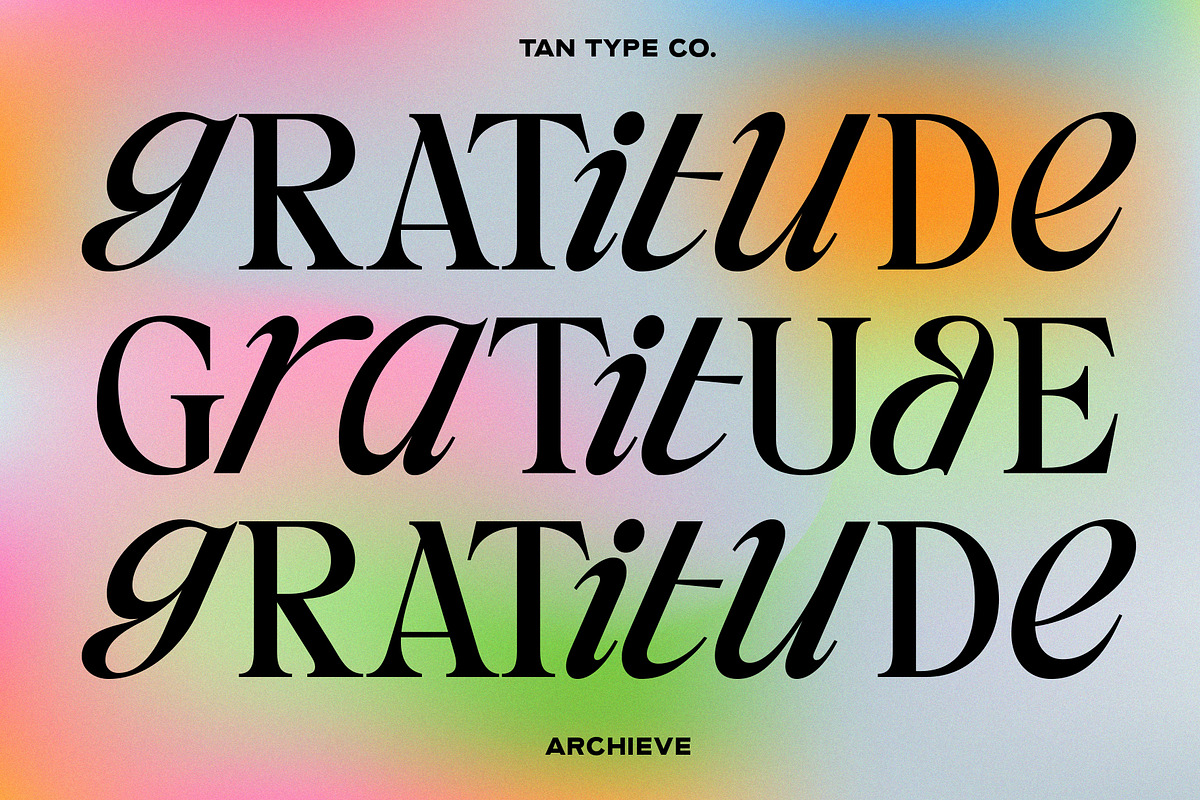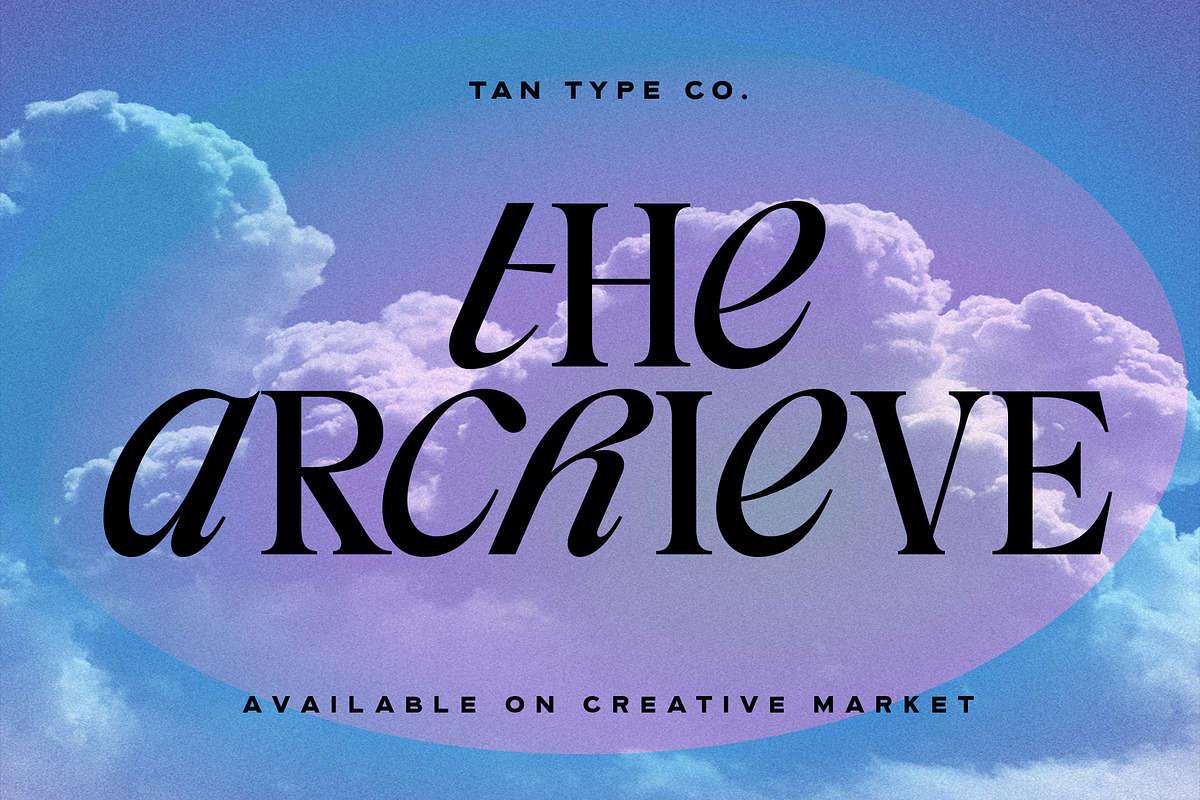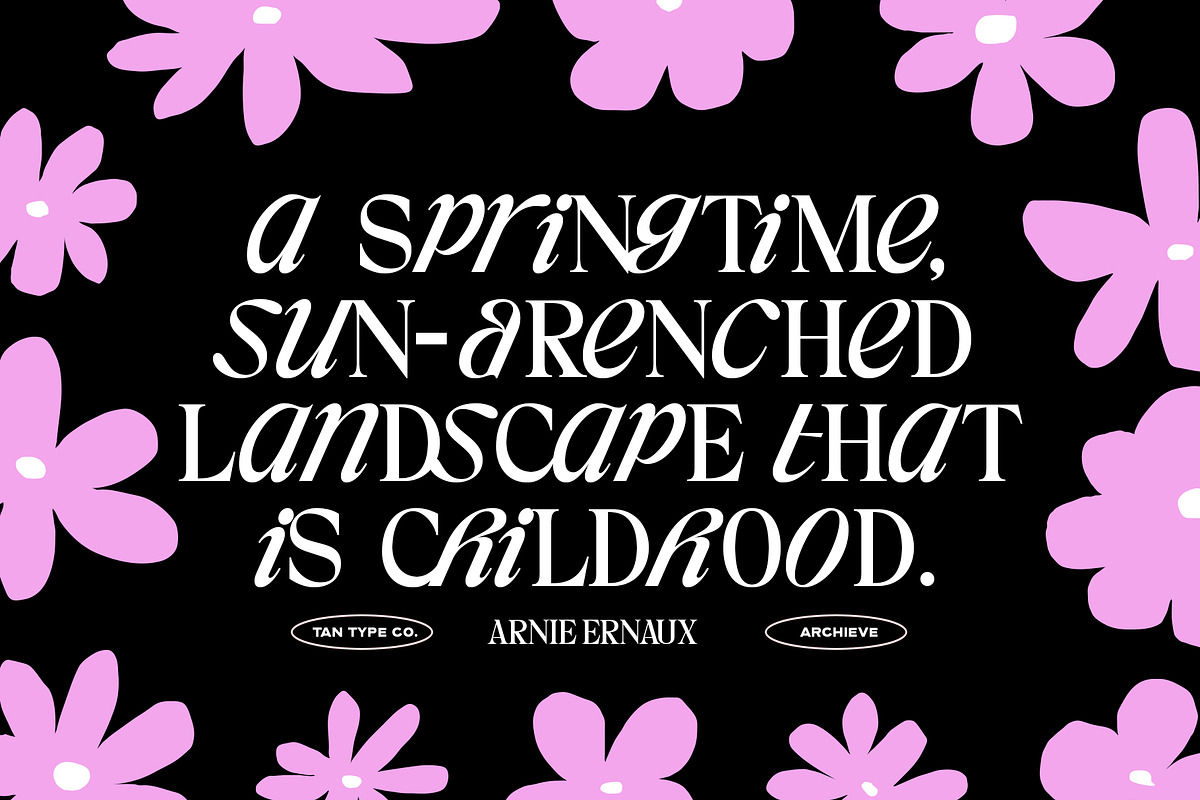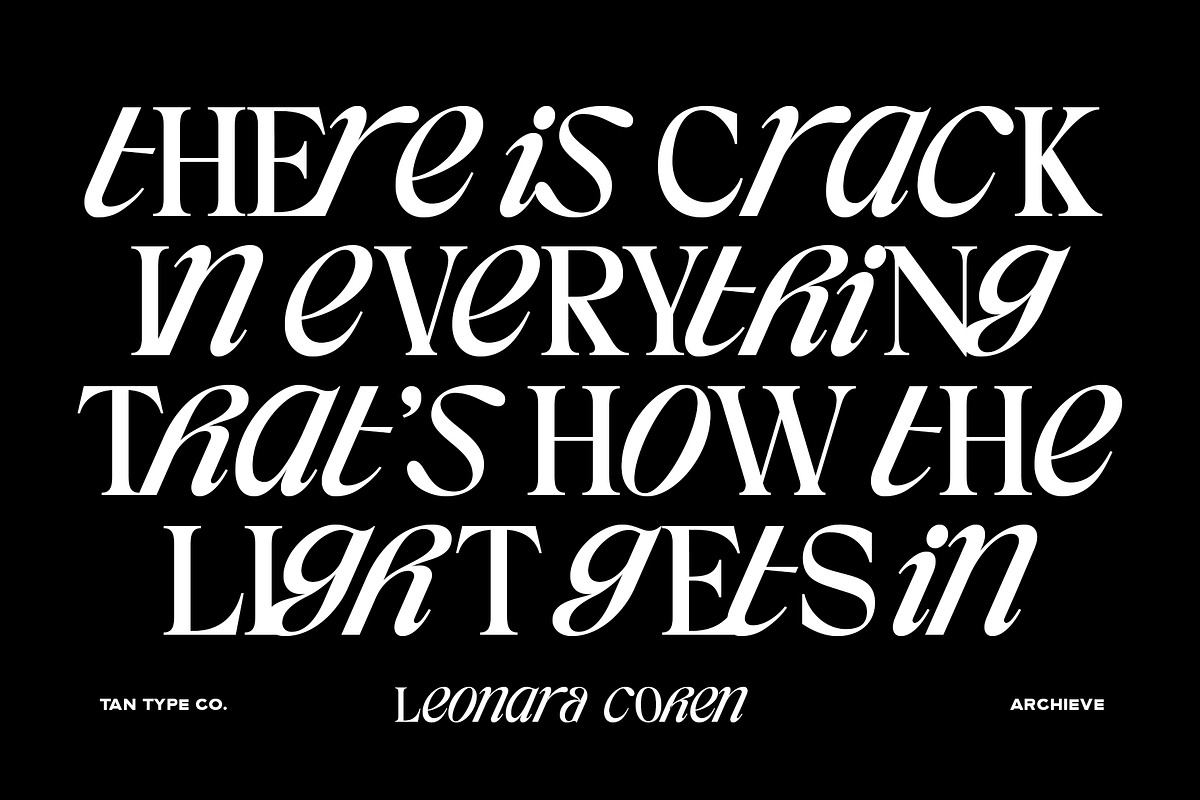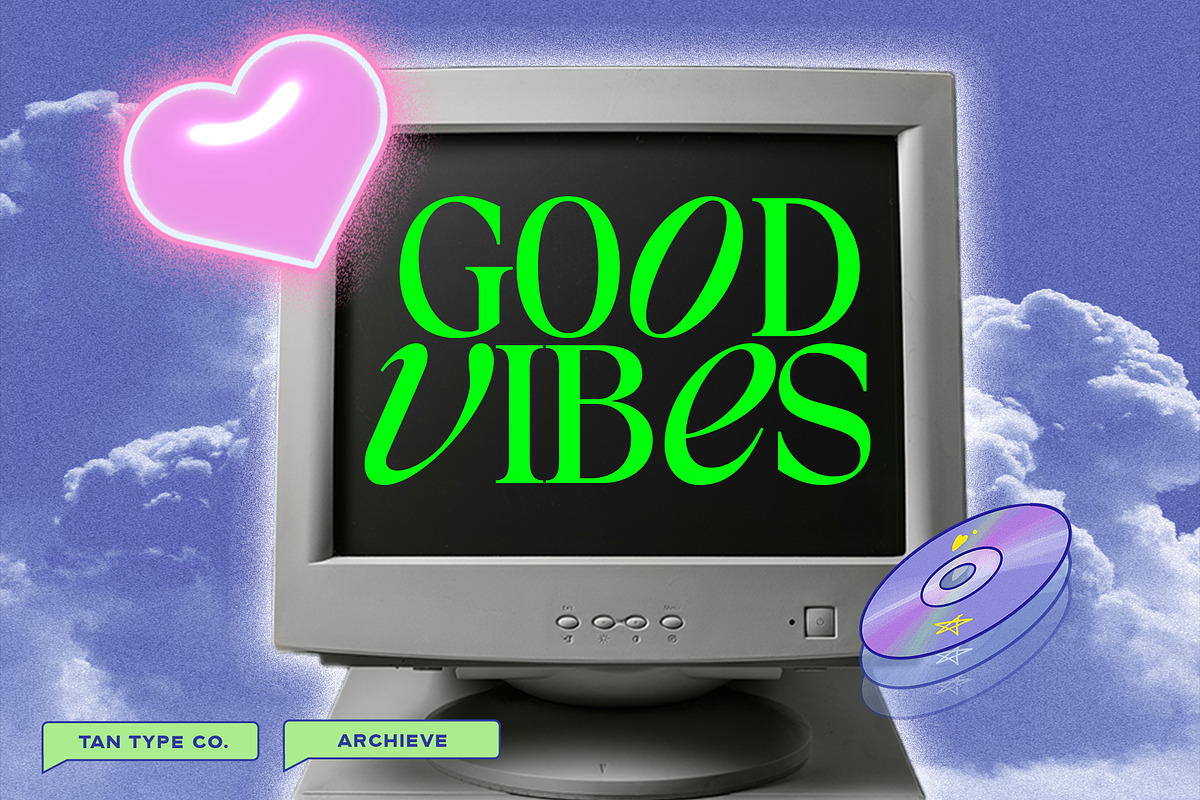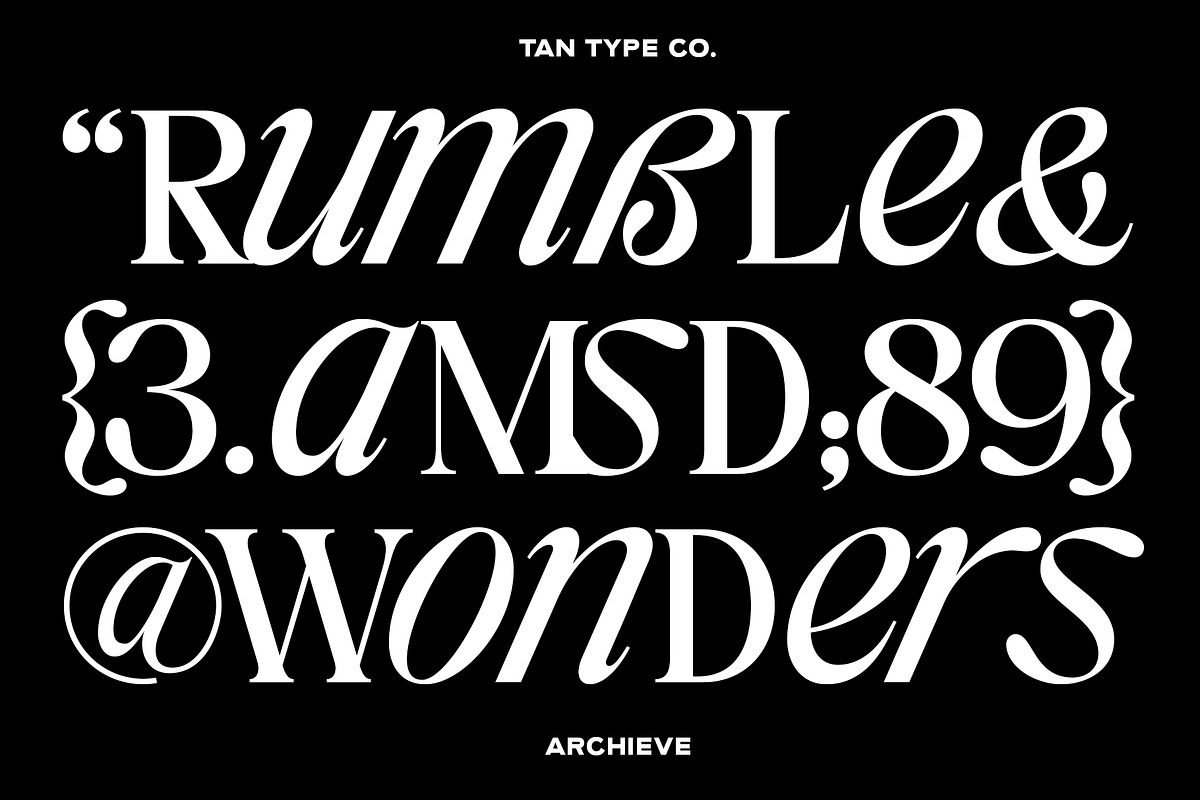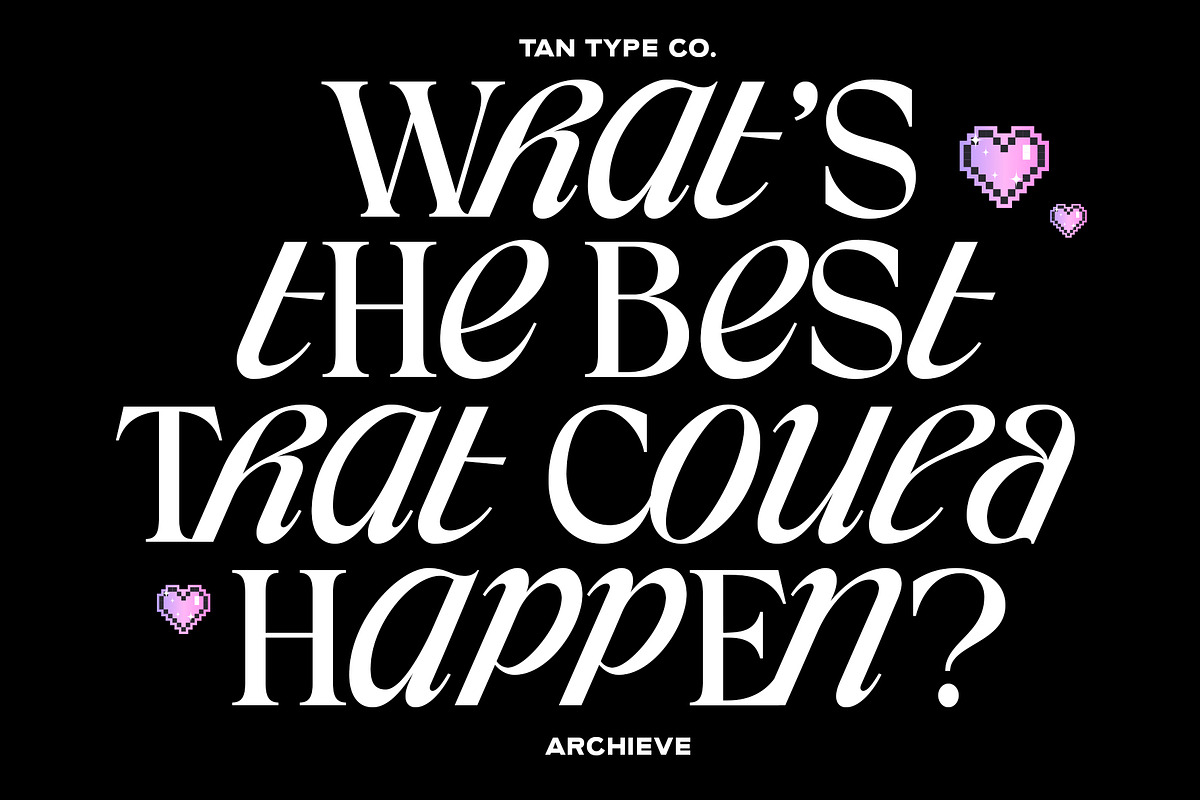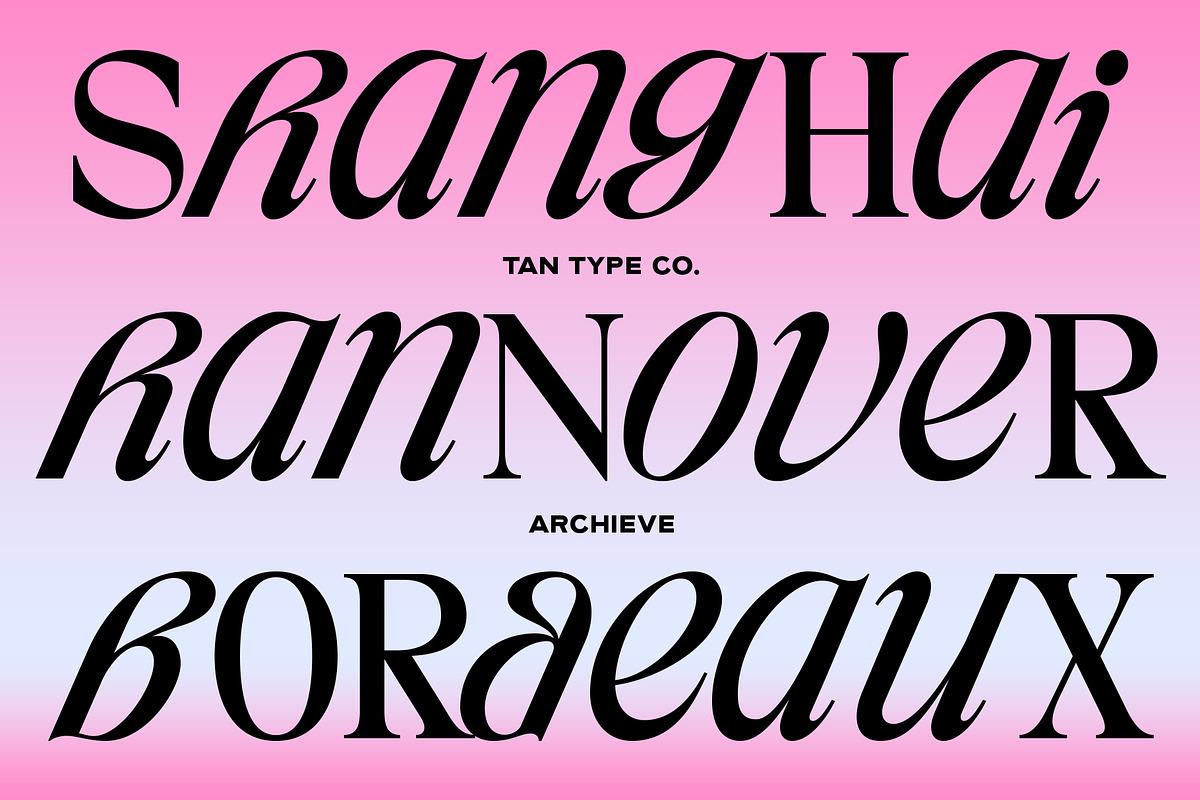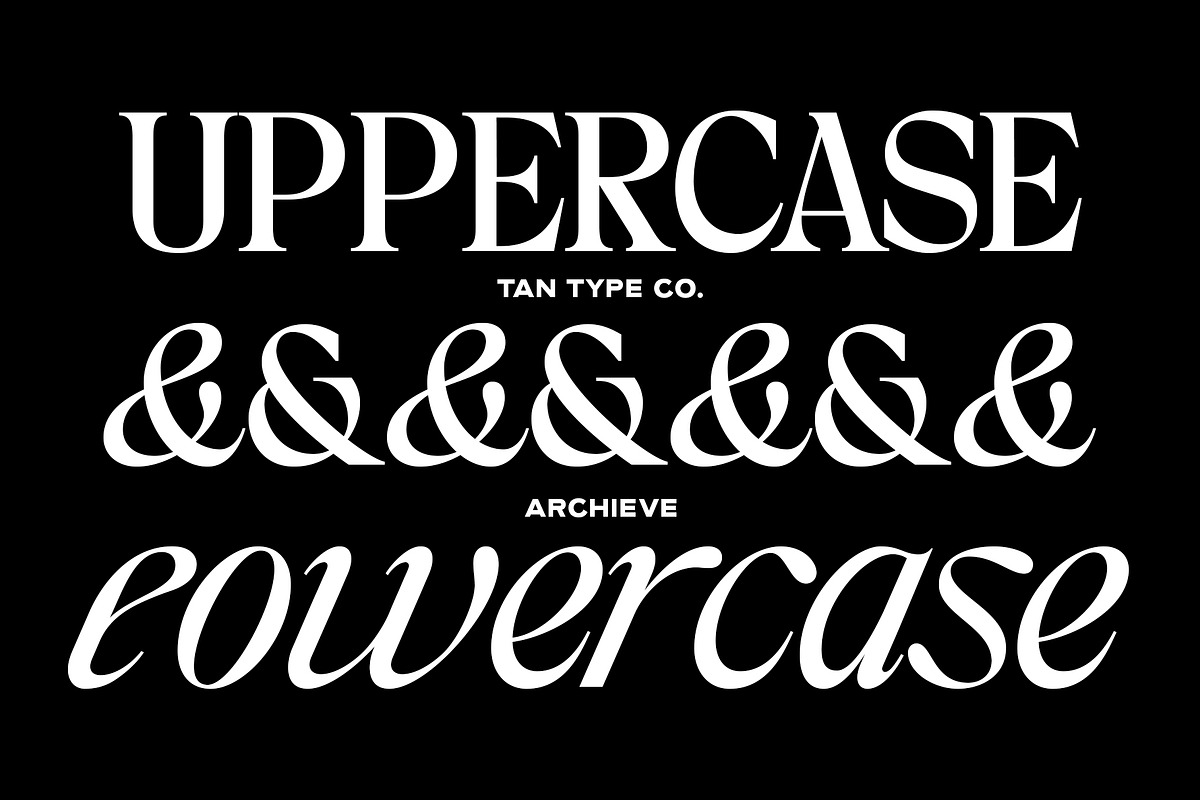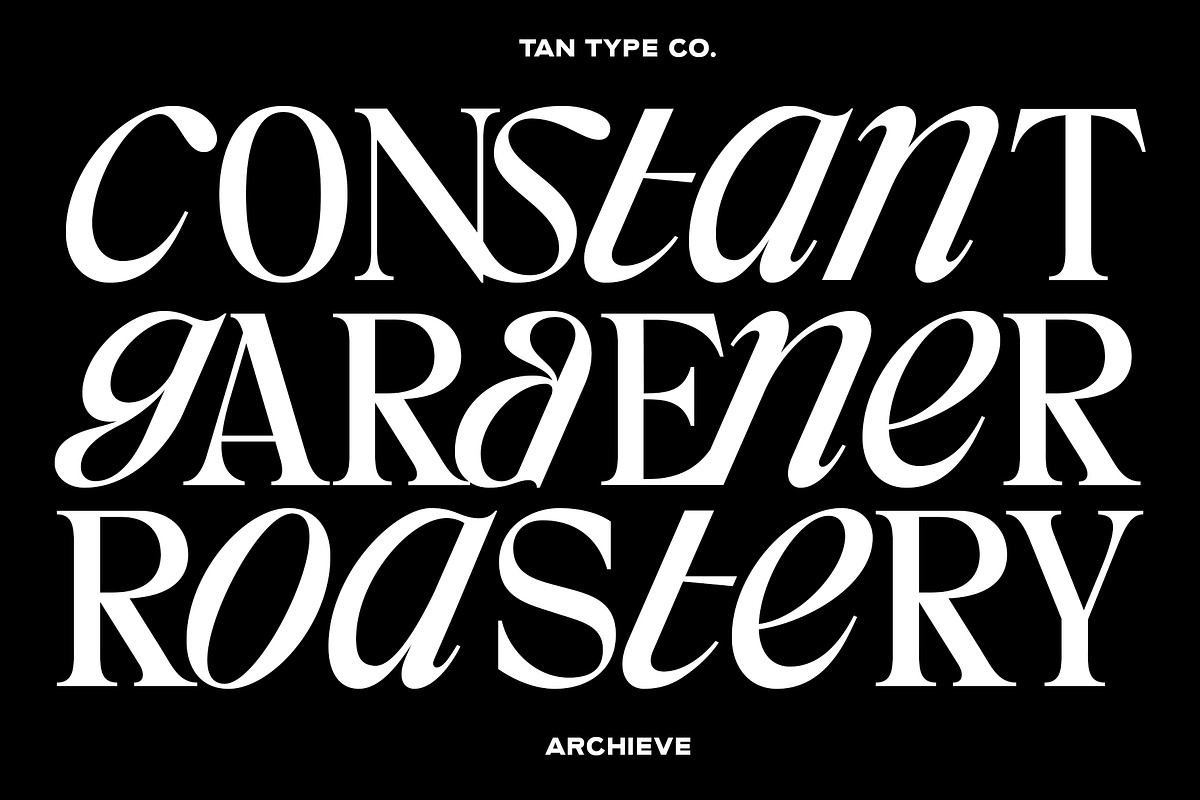
TAN - ARCHIEVE
TAN Archieve is a serif typeface built on contrast.
Its uppercase letters are clean, structured, and classic—rooted in traditional serif proportions. In contrast, the lowercase characters lean slightly italic, introducing a subtle sense of movement and personality. That shift creates a quiet tension between stability and expression.
The result feels refined but not rigid. It carries an editorial quality while still having character. The Archieve works well for branding, book covers, packaging, headlines, and visual identities that need something timeless with a distinctive edge.
It’s a serif that respects tradition, but doesn’t feel stuck in it.